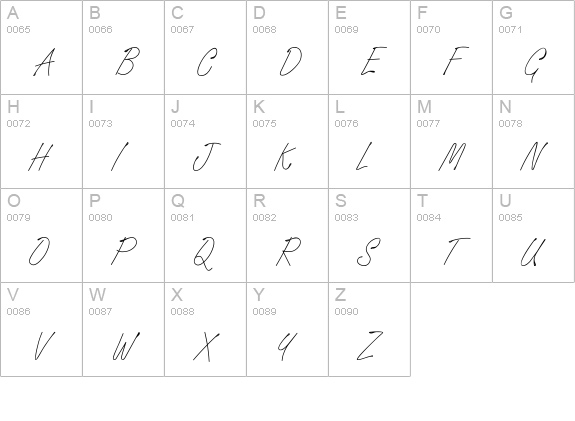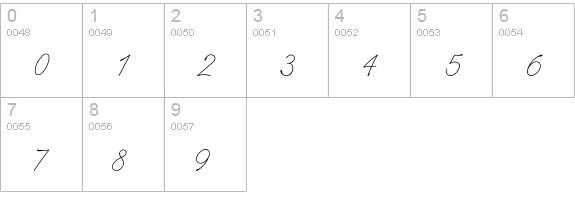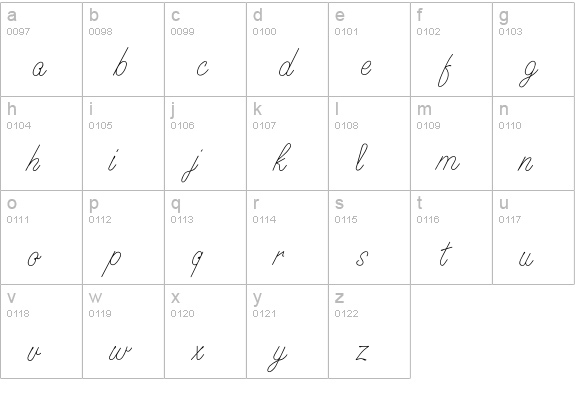
SignatureLight Font Details
SignatureLight is a captivating and elegant font that adds a touch of sophistication to any design project. With its delicate and graceful strokes, this typeface exudes a sense of style and refinement. Perfect for use in branding, logos, wedding invitations, and more, SignatureLight offers a seamless blend of classic and modern elements. This font features a unique and distinct character set that is sure to make your text stand out. Its clean and legible design ensures readability at any size, making it suitable for both print and digital applications. Whether you're designing a logo for a high-end brand or creating personalized stationery, SignatureLight's versatility makes it a go-to choice. One of the best things about SignatureLight is that it is absolutely free! That's right, this incredible font can be downloaded at no cost from FontsMarket.com. This means that you can enjoy the beauty and quality of SignatureLight without having to spend a dime. Don't miss out on this fantastic opportunity to elevate your designs with a stylish and eye-catching typeface. Download SignatureLight today from FontsMarket.com and let your creativity soar. Whether you're a professional designer or a DIY enthusiast, this font is sure to become a valuable addition to your typographic arsenal. With its timeless appeal and free availability, SignatureLight is the perfect choice for those seeking elegance and sophistication in their designs.